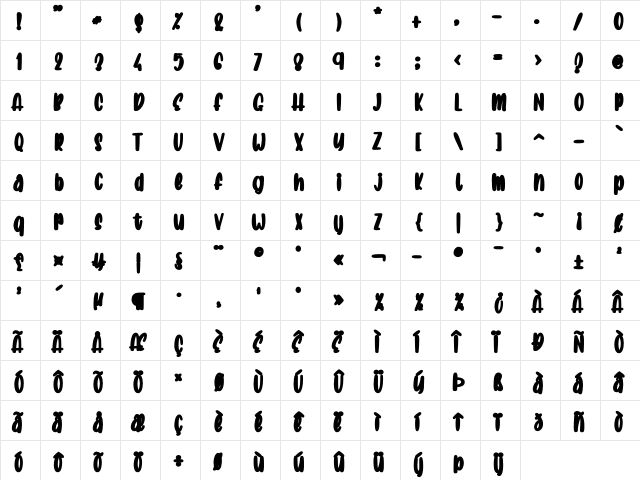
Lovely Unicorn Shadow Regular
| Designer | Sarwo Edhi Prayitno |
Design Context for Lovely Unicorn Shadow Typeface
Lovely Unicorn Shadow is built around its visual character rather than neutral utility — its distinctive forms are designed to make an impression at display sizes.
Font Pairing: Pair with a clean neutral sans-serif for body copy to let Lovely Unicorn Shadow's character lead without overwhelming the composition.
Pro Tip: Use Lovely Unicorn Shadow exclusively at display sizes — it was designed to be seen, not read at length. Let a neutral companion handle body copy.